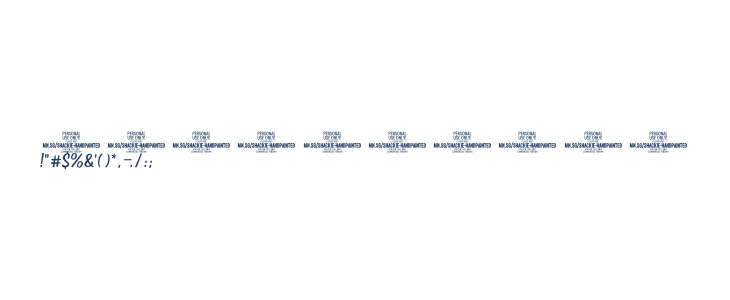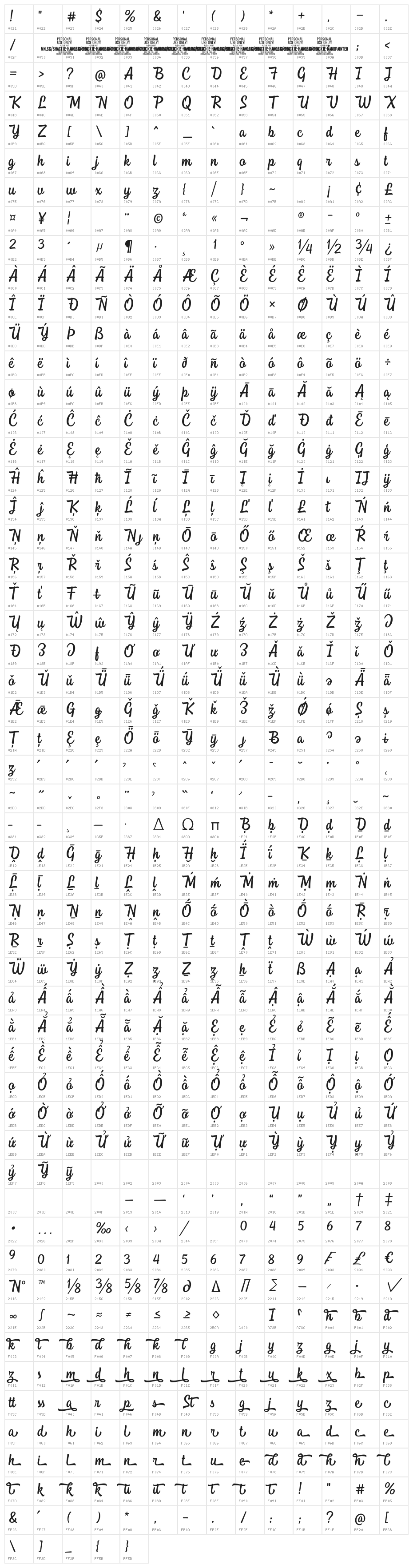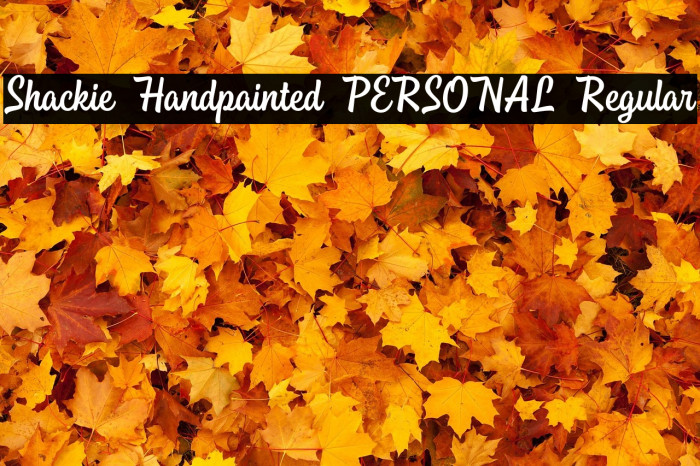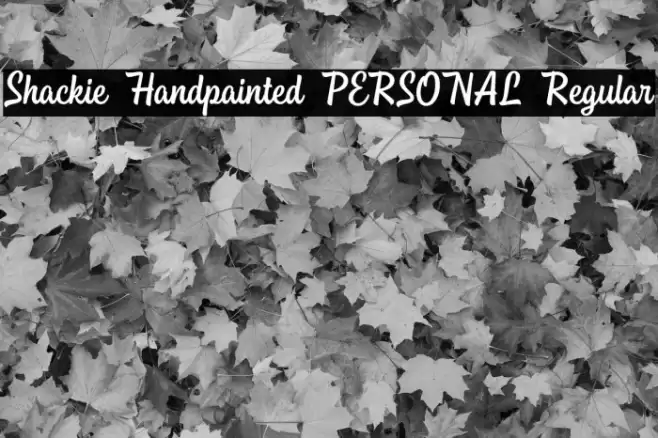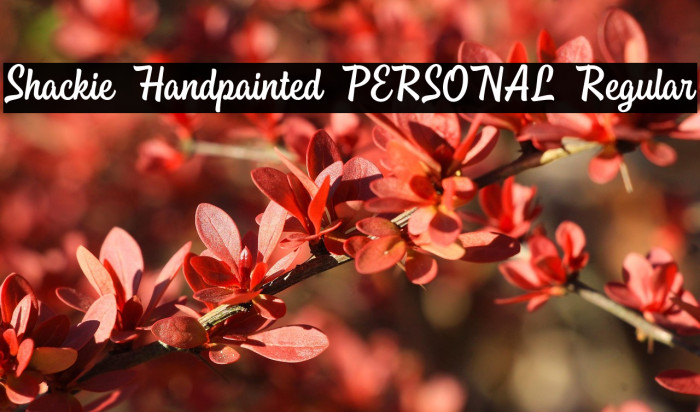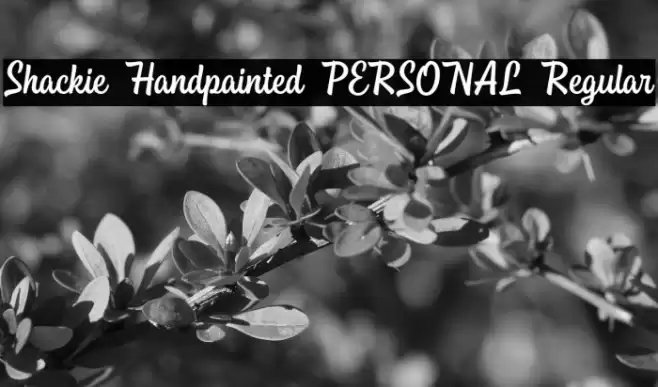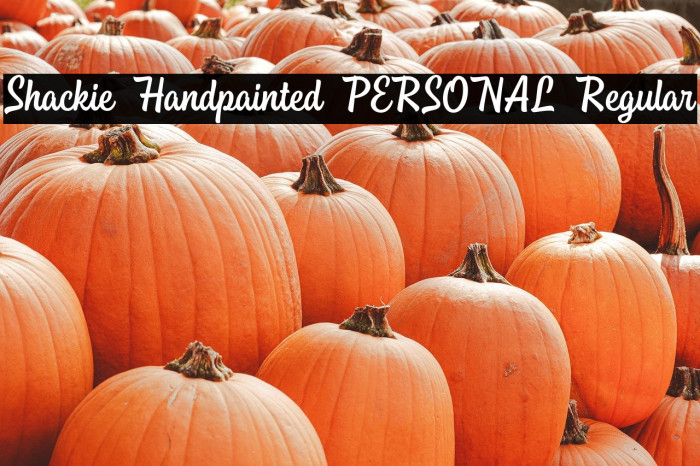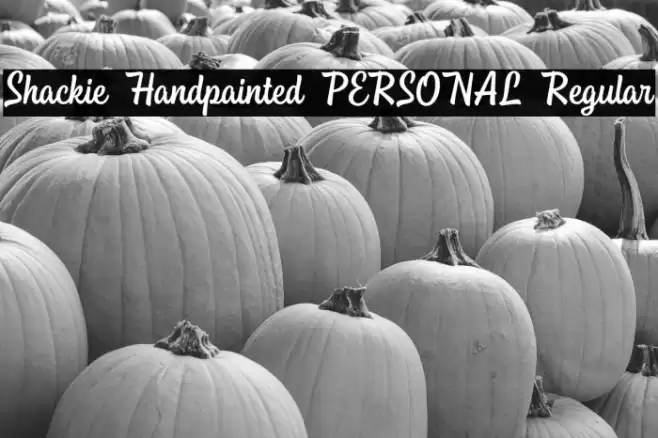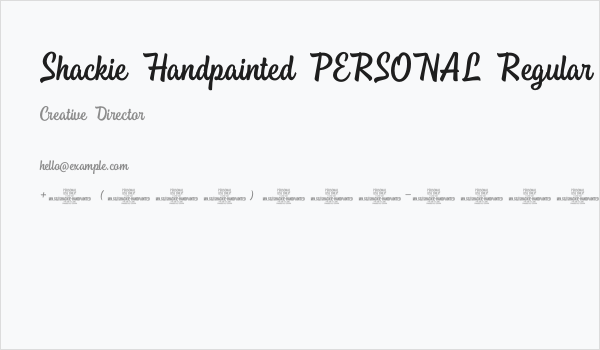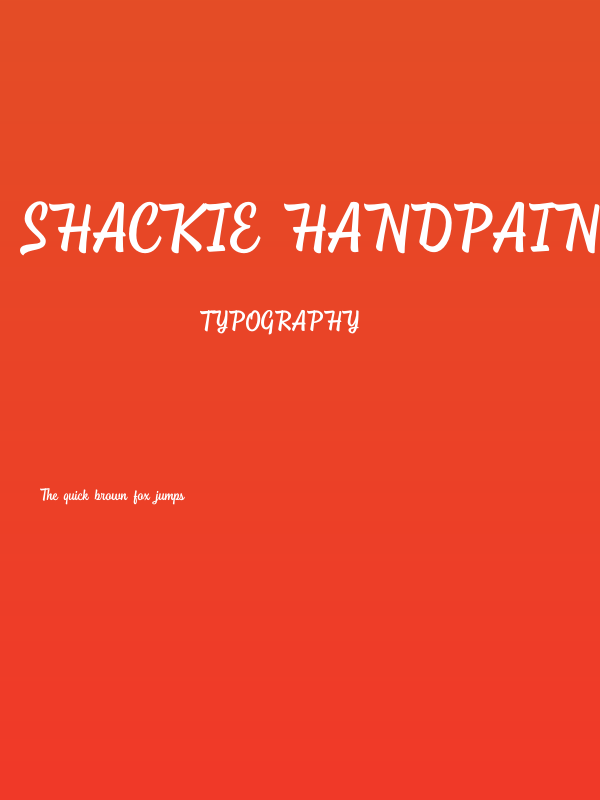
Shackie Handpainted PERSONAL Regular Font
Shackie Handpainted PERSONAL Regular Description
This font exudes a hand-painted, artistic flair with its fluid and dynamic strokes. The uppercase letters are bold and slightly slanted, giving a sense of movement and energy. The lowercase letters maintain a consistent style with a smooth, cursive flow that complements the uppercase. The numerals and special characters are crafted with the same attention to detail, ensuring a cohesive look across all glyphs. This font's organic and lively appearance makes it ideal for projects that require a personal touch or a creative, informal vibe.
| Proposed Projects | Ideal for greeting cards, invitations, branding projects, and artistic posters. |